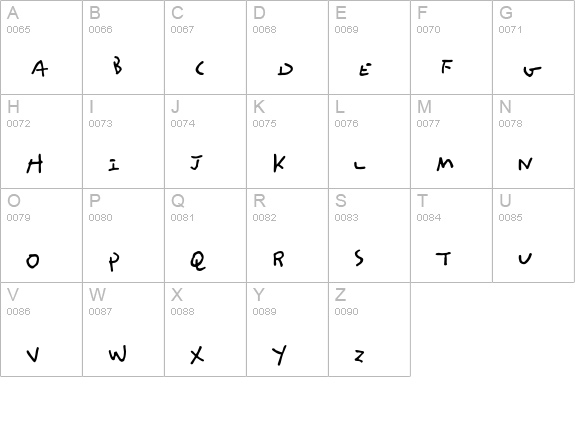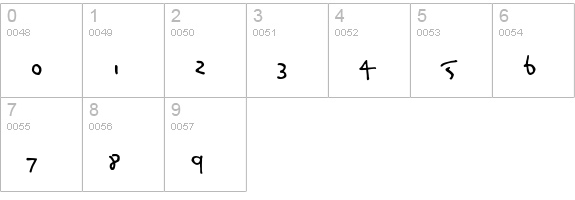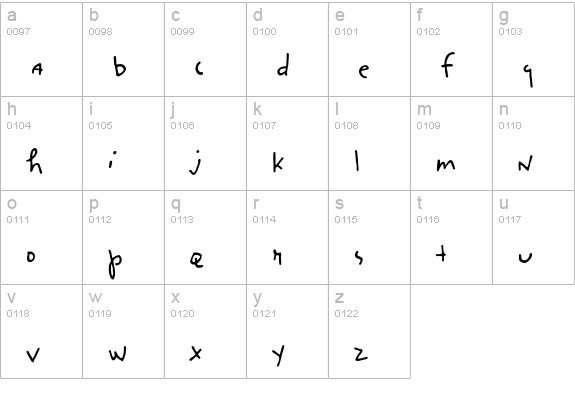
Dizzy-Regular is the standard, neutral variant in the Dizzy typeface family \xE2\x80\x94 well suited to general body text, paragraphs, and standard typographic work.
Dizzy-Regular is a modern and stylish font that exudes a sense of creativity and playfulness. With its unique curves and clean lines, this font is perfect for a variety of design projects, from branding to social media graphics. Dizzy-Regular is a versatile typeface that will add a touch of whimsy to any design. Best of all, Dizzy-Regular is available for free download at FontsMarket.com. Whether you're a seasoned designer or just starting out, this font is a fantastic addition to your collection. Don't miss out on the opportunity to add Dizzy-Regular to your creative arsenal today!